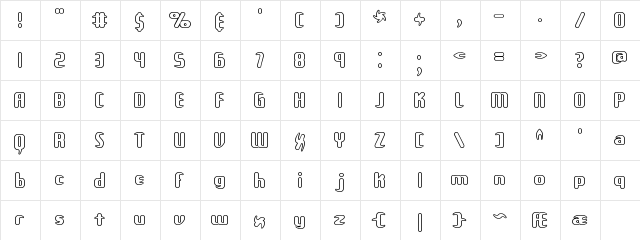
Unexplored Galaxies O BRK Regular
| Foundry | ƎIGMA FONTS |
| Designer | ƎIGMA FONTS - Brian Kent |
Design Context for Unexplored Galaxies O BRK Typeface
Unexplored Galaxies O BRK is a composed and adaptable typeface that performs quietly and consistently across a wide range of design contexts.